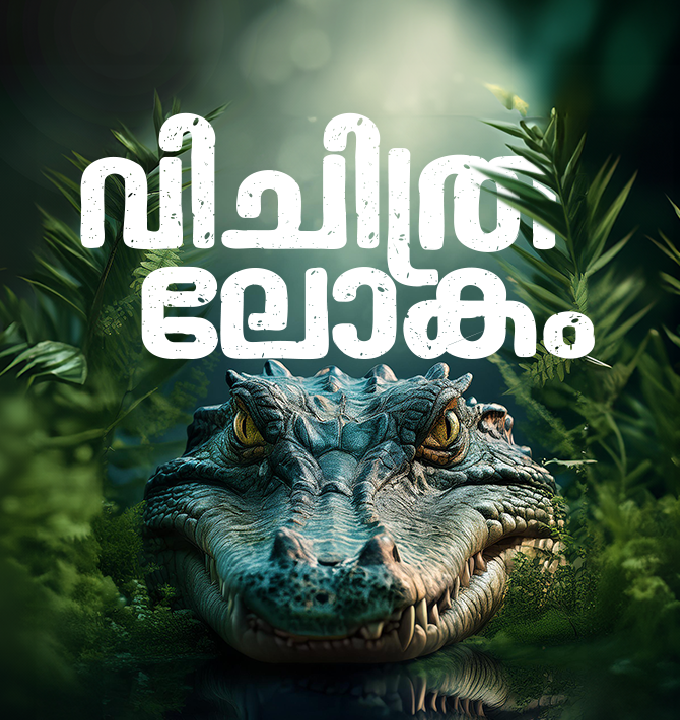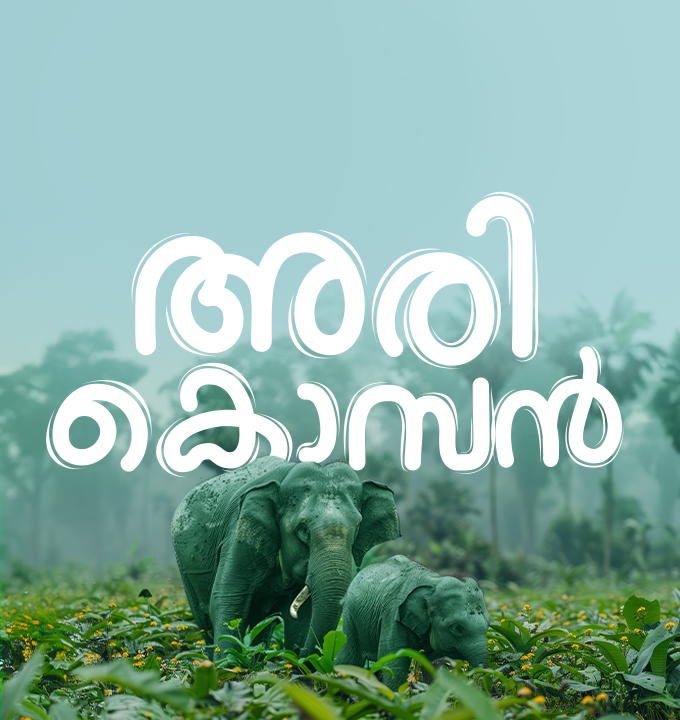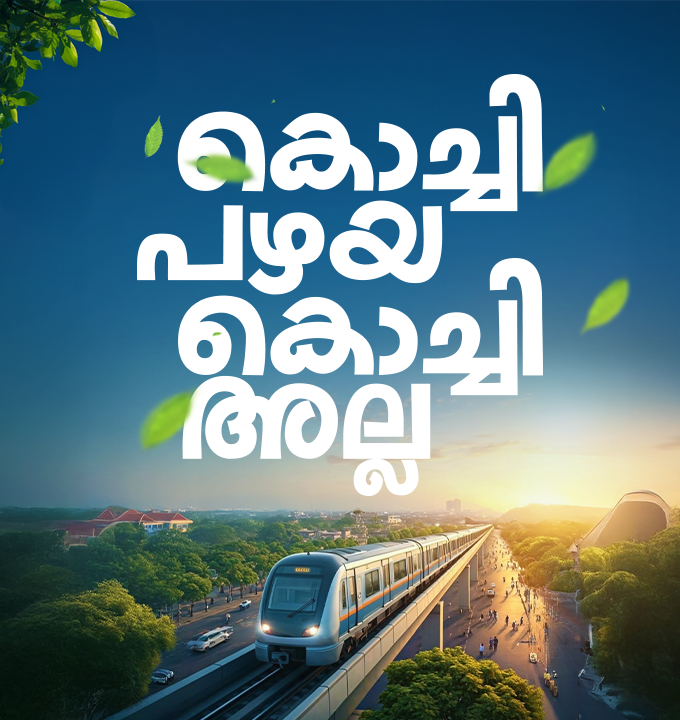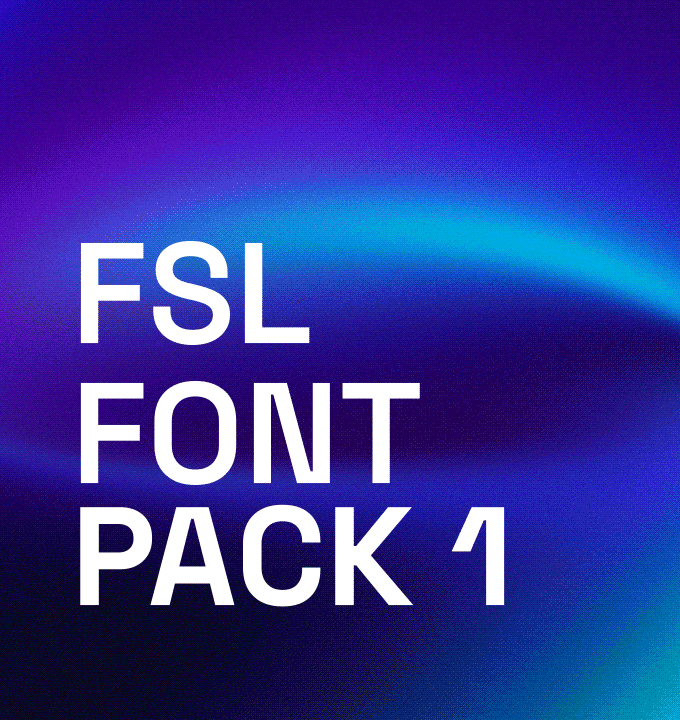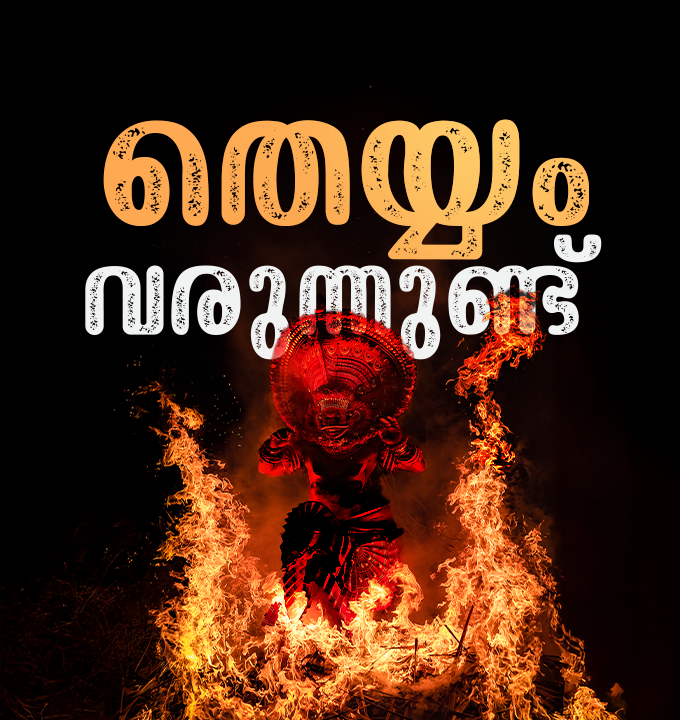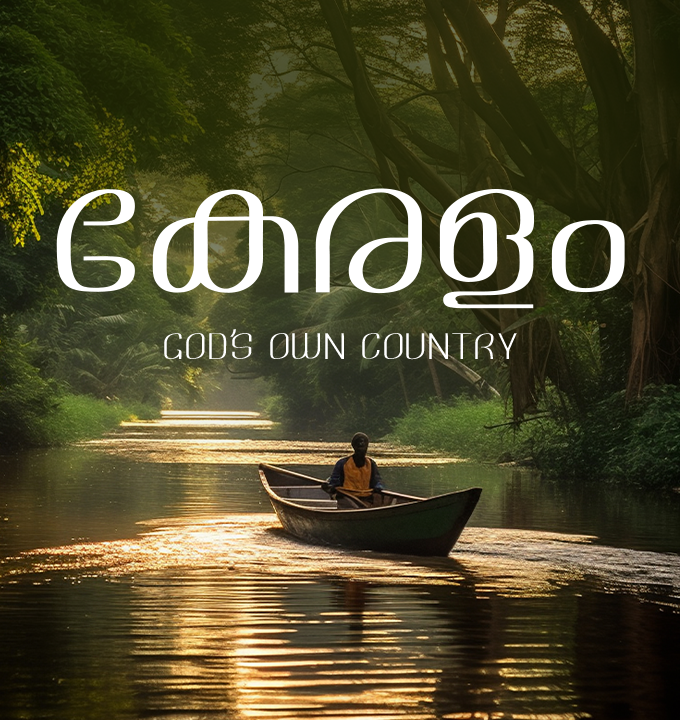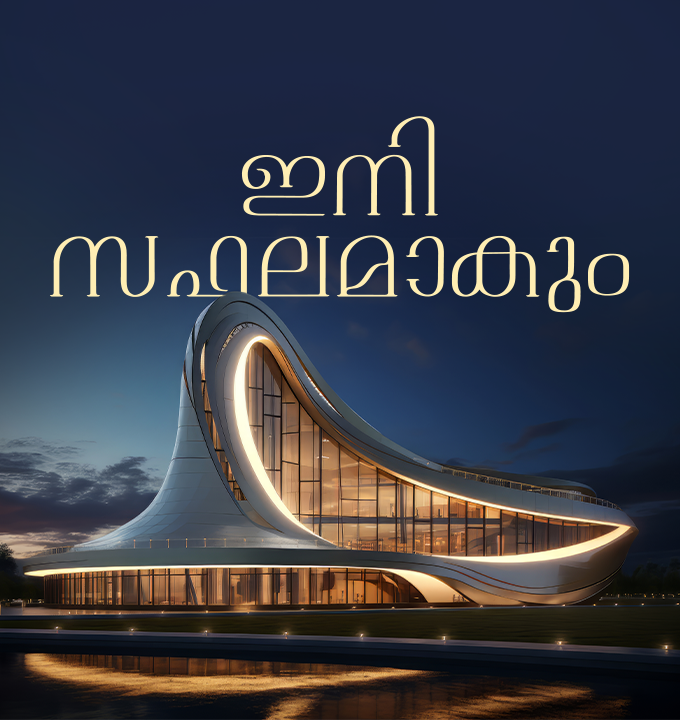
What began as a small creative spark has grown into a leading force in custom type design. At Fontspell Type Studio, our team of multidisciplinary designers specializes in crafting high-quality typography fonts, calligraphy, and lettering styles tailored for both individuals and global brands. Our passion for typography fuels every project; whether it’s a traditional script like a Malayalam font style inspired by cultural heritage, or a minimalist typeface with modern sophistication.
With a deep understanding of form, readability, and cultural relevance, we create type solutions that elevate your brand identity with precision and personality. Whether you’re looking to download Malayalam calligraphy fonts or develop a bespoke typeface that embodies your brand voice, Fontspell delivers artistry in every letter.
we create custom typefaces and logotypes for brands and agencies in all native languages.
FSL Olam — Where Boldness Meets Modernity. A versatile Malayalam and English Unicode typeface with eight carefully tuned weights, ideal for branding, editorial, and digital design.
FSL Newton — Where Clarity Meets Modernity. A versatile Malayalam Unicode typeface with four carefully tuned styles, ideal for branding, editorial, and digital design.
FSL Mughām — Where Expression Meets Precision. A versatile typeface with 5 adjustable styles and 11 weights, including an expressive Art style. Supporting Malayalam and English, it’s perfect for branding, editorial, and modern typography.
Bold, playful brush-textured font with smooth flowing strokes, expressive ligatures, and full Malayalam & Latin Unicode support
Kerala’s first height-adjustable Unicode font in Malayalam & English.